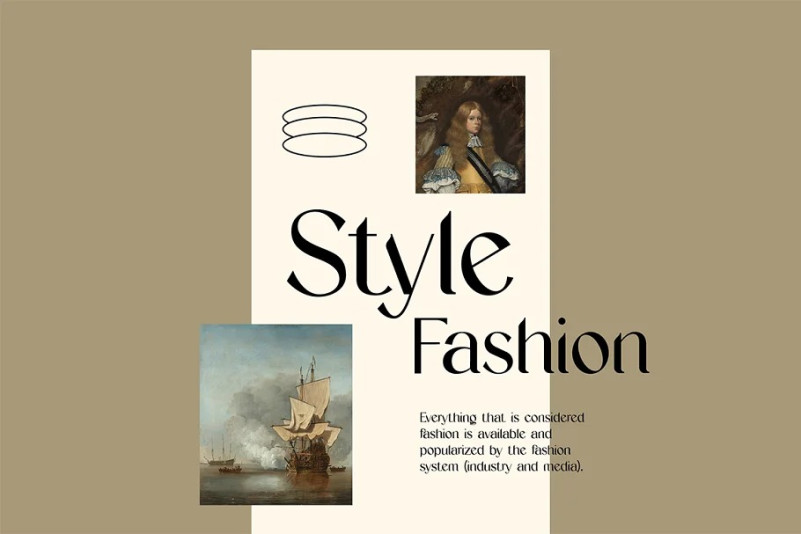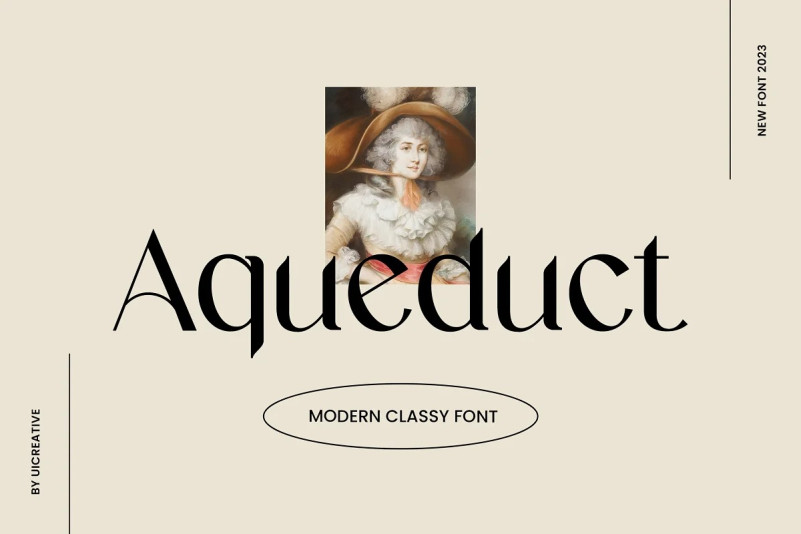
Aqueduct Font
Aqueduct Font – Modern Classy Serif Font. Modern Serif font that feels beautiful classy, elegant, and modern. This font is ideally suited for a wide variety of projects, such as signature, stationery, logo, wedding, typography quotes, magazine or book covers, website headers, clothing, branding, packaging design, and more. Also, fashion-related branding or editorial design displays both masculine and feminine qualities.